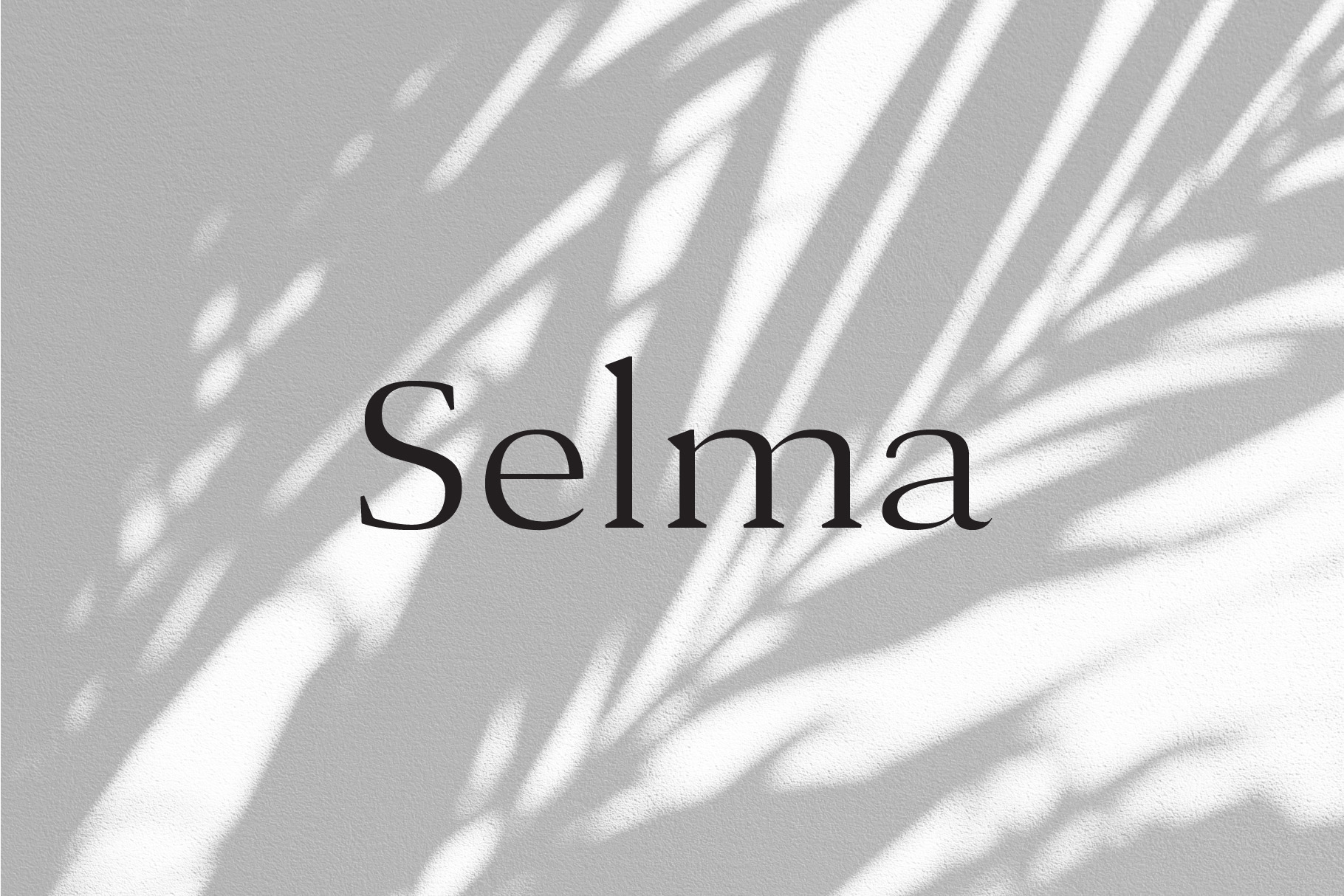
Selma - A Classy Serif Typeface
Selma is a classy typeface with strong, thick serifs. It has a little bit of personality and can be used for headers and body copy in heavier weights. This font family includes all Latin characters (including accents), numbers, special characters, and punctuation.